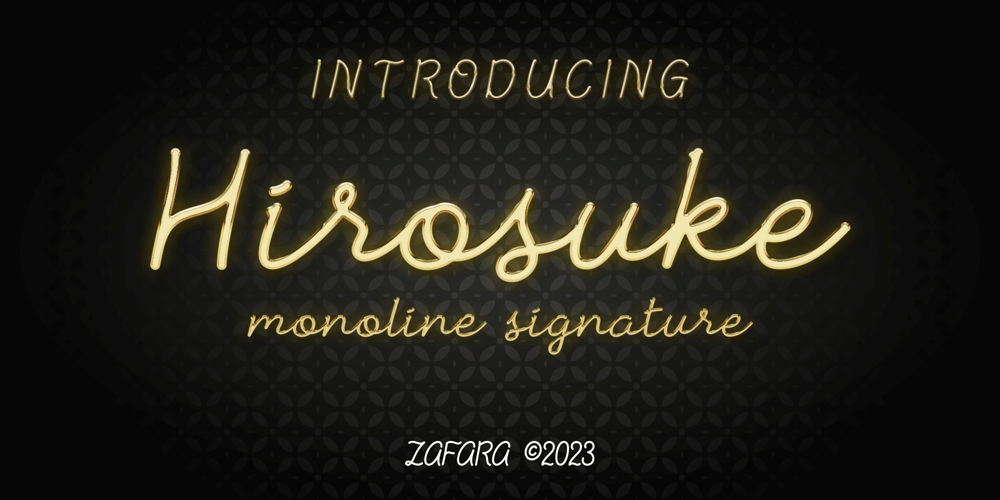
Hirosuke
Hirosuke font
Hirosuke Font Family was designed by Zohan Nur Muchlis and published by Zafara Studios. Hirosuke contains 1 styles and family package options. Hirosuke is a font designed to look like handwritten script. This font can be used for personal branding, invitations, and other designs that require a personal touch. These fonts can be elegant, sophisticated, or even whimsical depending on the specific font.The details:- Uppercase & lowercase- Numbers & punctiation- International language